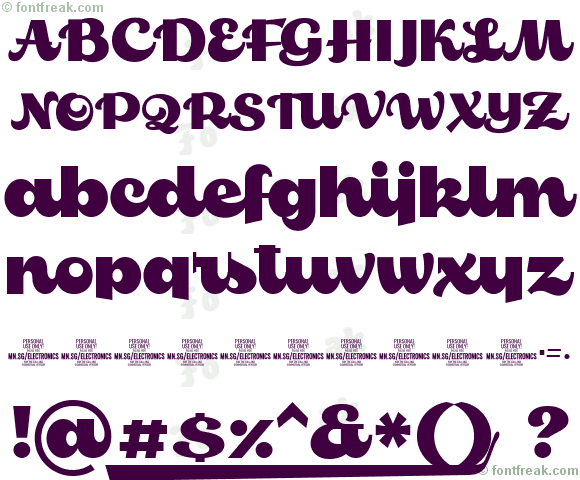
Electronics PERSONAL USE
Electronics Line PERSONAL USE
The Electronics PERSONAL USE font by Mans Greback is a striking display typeface that embodies a modern and playful aesthetic, making it perfect for a variety of creative projects. As a decorative font, it features bold, rounded letterforms with a strong presence, ensuring that your text stands out. The stroke weight is consistent throughout, providing a sense of balance and harmony, while the playful curves and unique character shapes add a touch of whimsy. The spacing between the letters is well-considered, allowing for easy readability even in larger formats.
This font is ideal for use cases such as branding for tech startups, eye-catching movie posters, or promotional materials for electronic gadgets. Additionally, it can enhance the visual appeal of event flyers, particularly those related to technology or music festivals. Small business owners looking to create memorable marketing collateral will find that the Electronics PERSONAL USE font adds a distinctive flair that resonates with their audience. Graphic designers and content creators can leverage this font to inject personality into their projects, making it suitable for social media graphics or website headers.
The target audience for this font includes graphic designers, small business owners, and content creators who appreciate a unique and visually engaging typeface. Whether you are designing for a tech-themed event or crafting promotional materials for a new product, this font offers versatility and charm.
What sets the Electronics PERSONAL USE font apart is its ability to blend modernity with a playful aesthetic, providing a fresh alternative to more traditional typefaces. Its unique character shapes and bold presence make it a standout choice for anyone looking to add a touch of creativity to their work. Don’t miss out on the opportunity to enhance your design projects with the Electronics PERSONAL USE font free download.